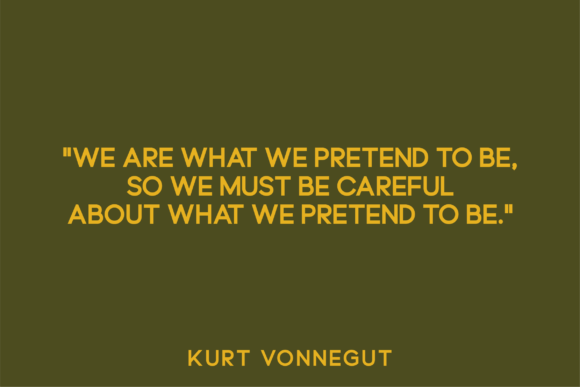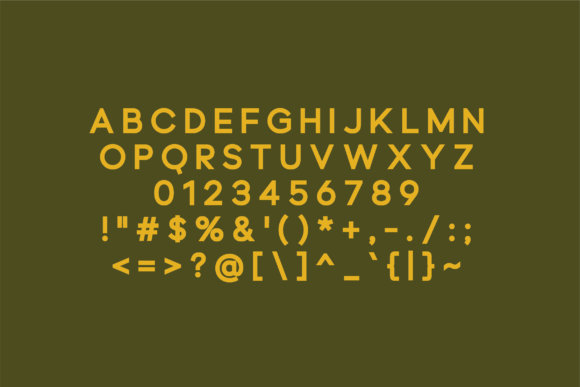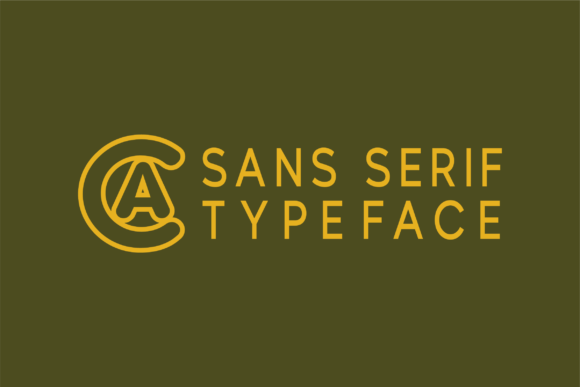
Introduction to Magnanimous Font
Have you ever stared at a blank page, waiting for the perfect font to bring your creative vision to life? That’s exactly what happened to me when I was working on a high-end wedding invitation design. I wanted something that exuded elegance and sophistication, yet still felt modern and approachable. That’s when I discovered the Magnanimous Font – a game-changer for designers looking to elevate their creative projects.
As a valuable design resource, the Magnanimous Font offers a perfect blend of high-quality typography and versatility. Its clean, sans-serif design makes it perfect for logos, quotes, and advertisements, while its transparent background allows for seamless integration with any design element. Whether you’re working on a magazine, print, or digital project, the Magnanimous Font is sure to make your ideas shine.
Key Features of Magnanimous Font
- High-quality typography with a unique, elegant design, perfect for creative projects.
Honest Review: Magnanimous Font
I recently came across the Magnanimous Font and was impressed by its unique design. As a designer, I’m always on the lookout for high-quality fonts that can elevate my creative projects.
Here’s what I like about the Magnanimous Font: ✨ It has a transparent background, making it perfect for designs that require a clean and minimalist look. ✨ It’s a great addition to any design resource, and I appreciate that it’s available for free download.
One limitation I’ve noticed is that the font might not be suitable for very small text sizes, as it can become difficult to read. ⚠️ However, this is a minor issue and doesn’t detract from the overall quality of the font.
Overall, I’m very impressed with the Magnanimous Font and would recommend it to anyone looking for a high-quality font for their creative project. It’s a great addition to any design resource, and I appreciate that it’s available for free download.
Tips for Getting the Most Out of the Magnanimous Font
Use the Magnanimous Font on a transparent background to create a high-quality design. You can also experiment with different font sizes and colors to achieve a unique look.
The Magnanimous Font is perfect for creative projects that require a high-quality, unique font. It’s ideal for use in logo design, infographics, and other visual materials. You can also use it as a free download for personal or commercial projects.